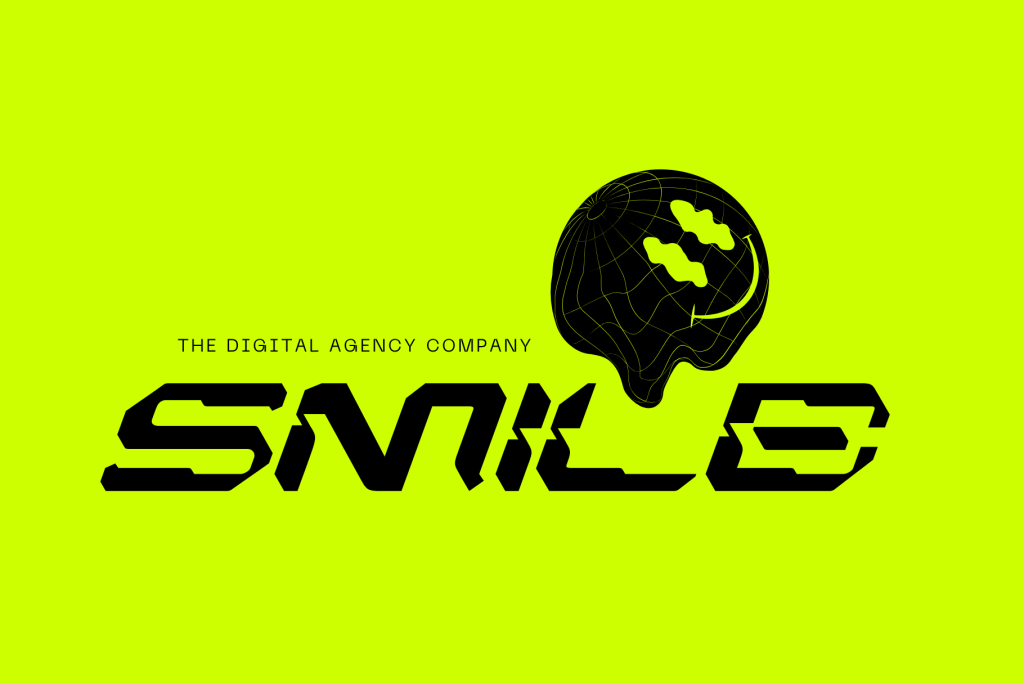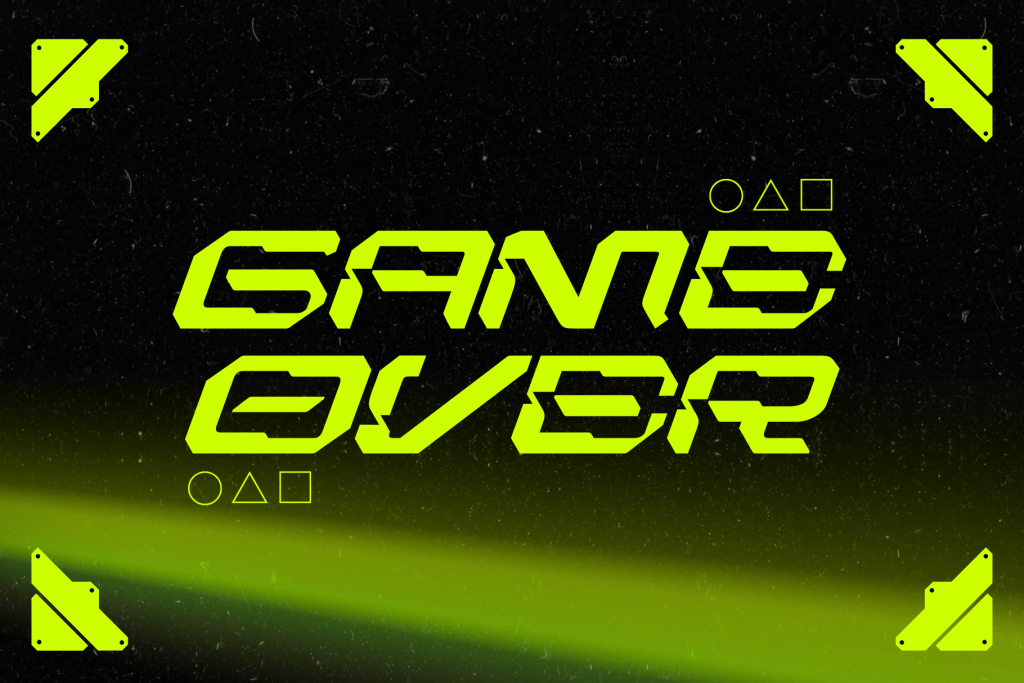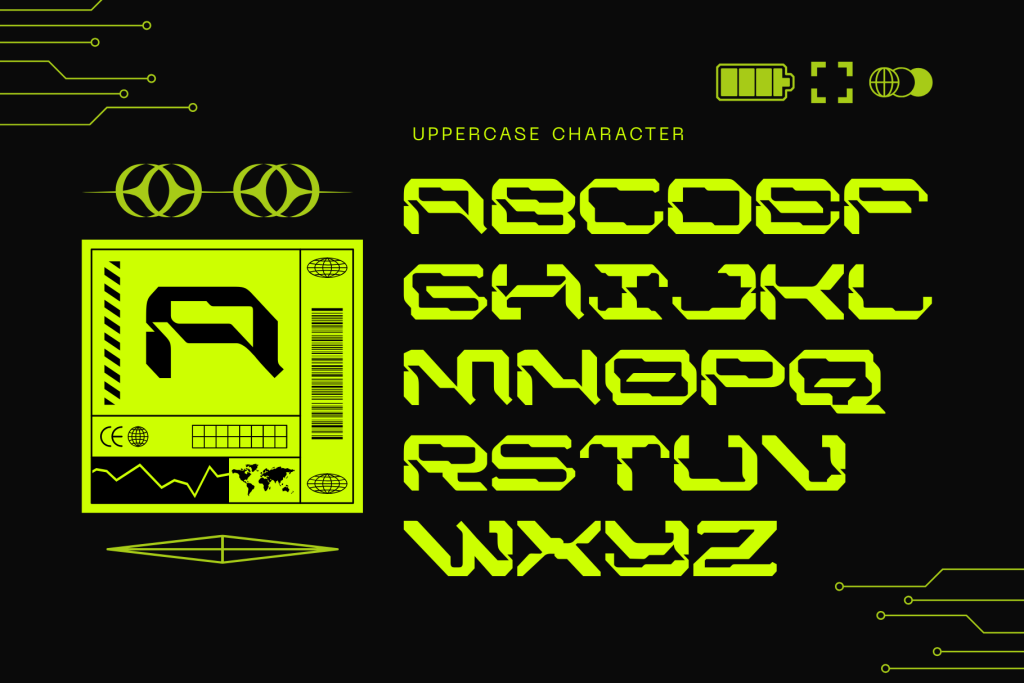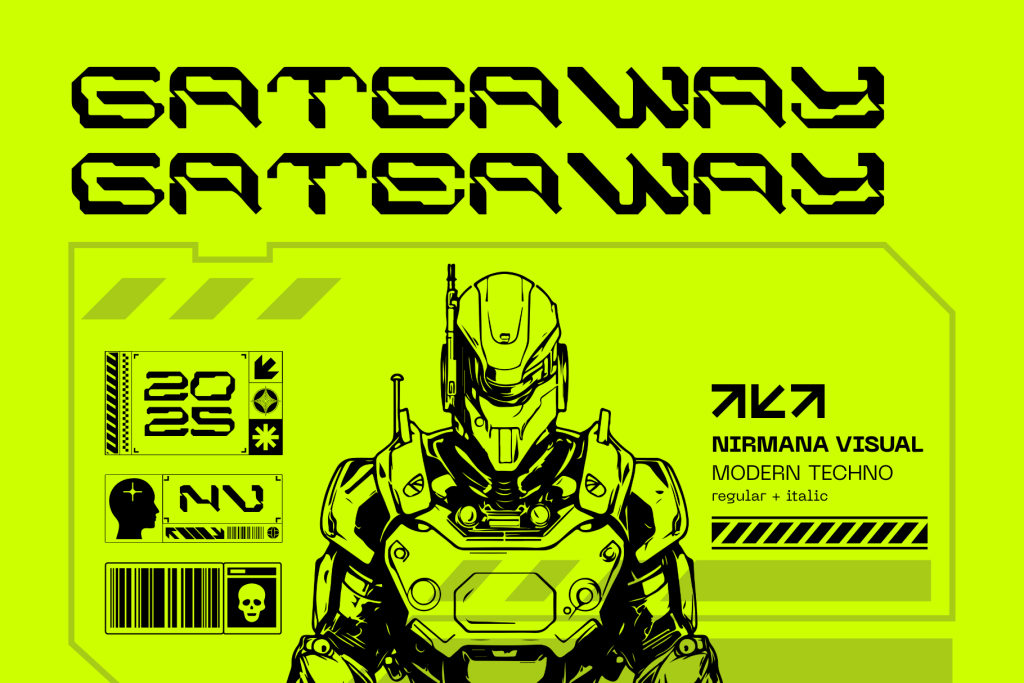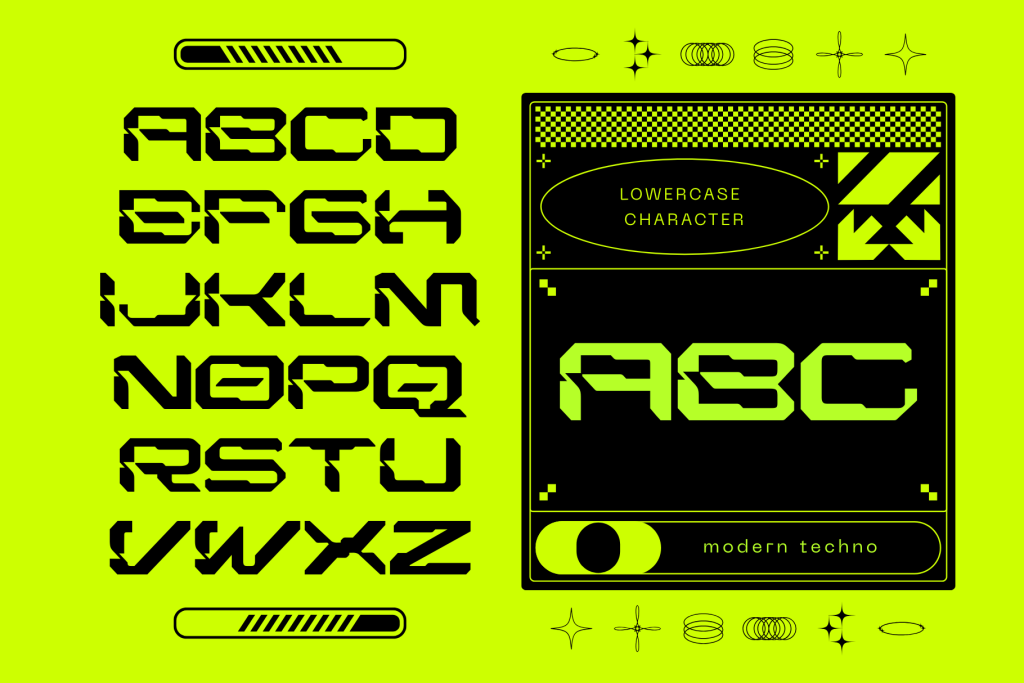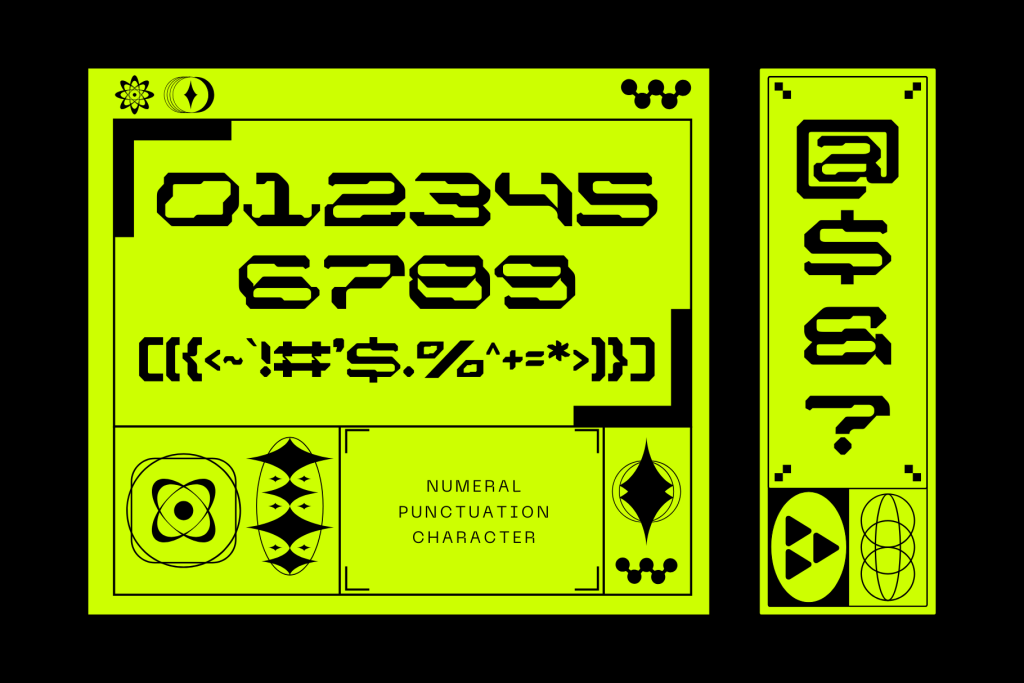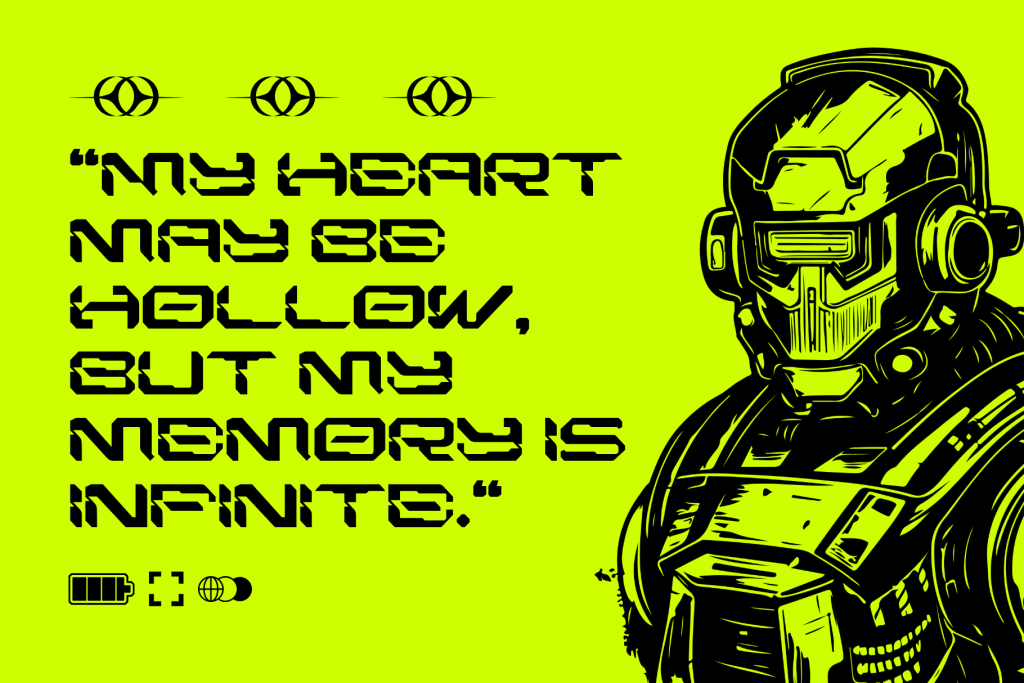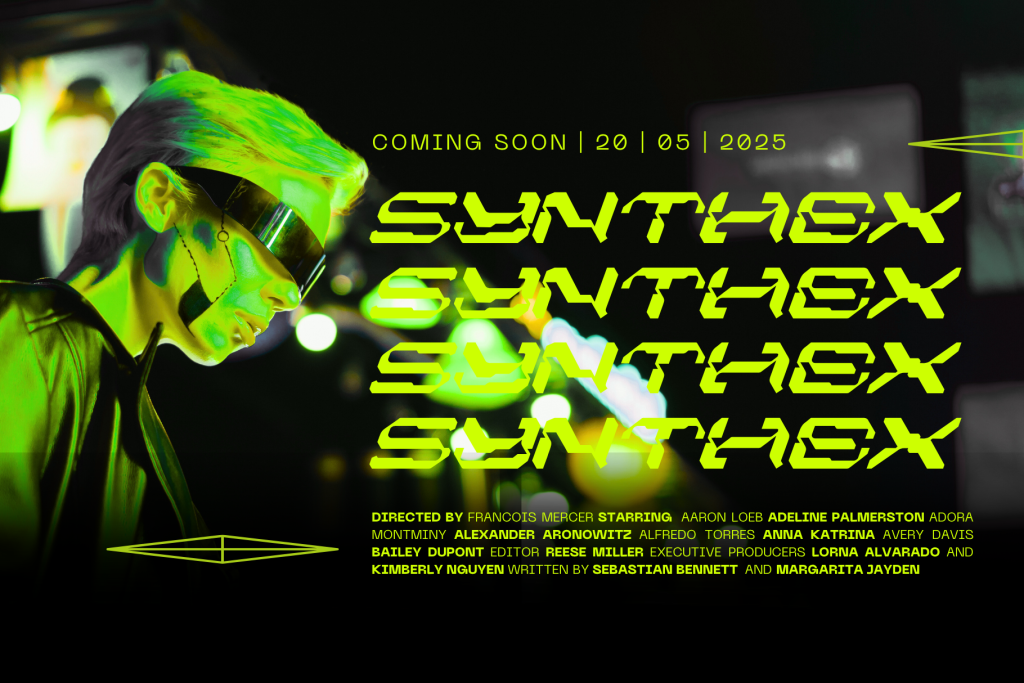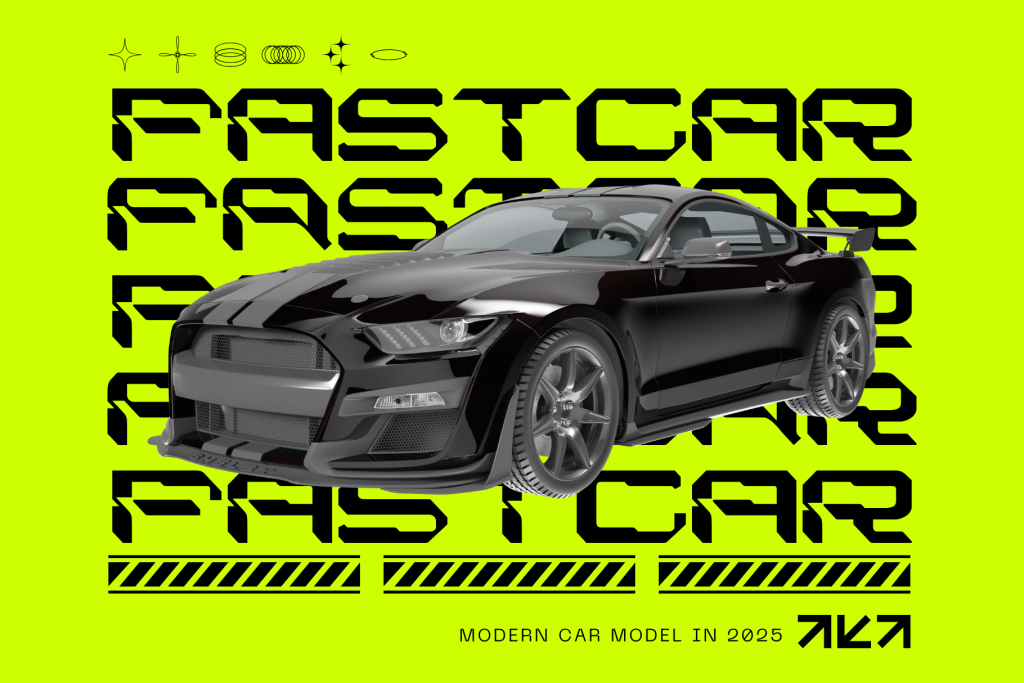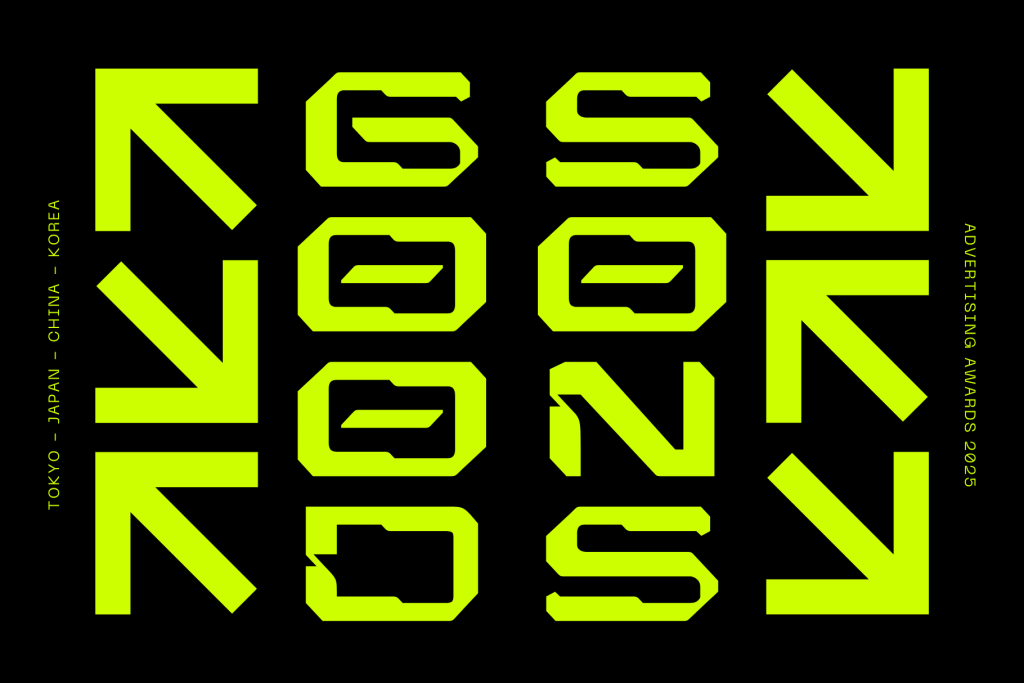
Game Sport – Branding Logo Font
Game Sport offers beautiful typographic harmony for a diversity of design projects, including logos & branding, social media posts, advertisements & product designs.
• Regular & Italic Font
• Display With Sport and Game Style
Game Sport is a dynamic font built for action and energy, available in Regular and Italic styles. Its bold lines, sharp angles, and athletic feel make it perfect for sports teams, gaming titles, and active brand logos. Designed to capture movement and power, Game Sport brings intensity and focus to any design. Ideal for branding that needs to stand out with strength, speed, and a competitive edge.